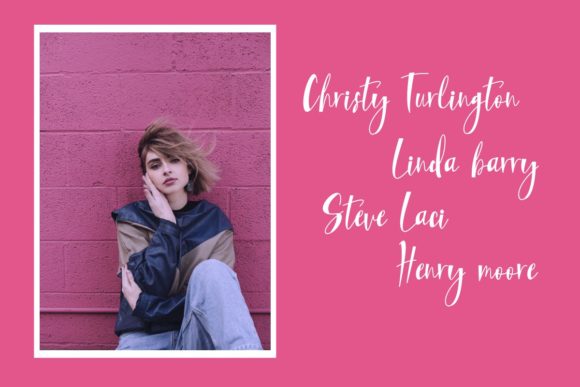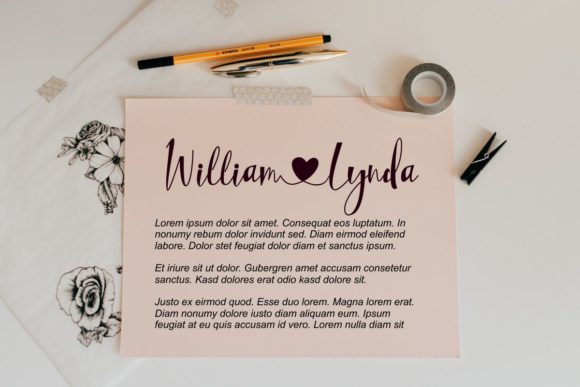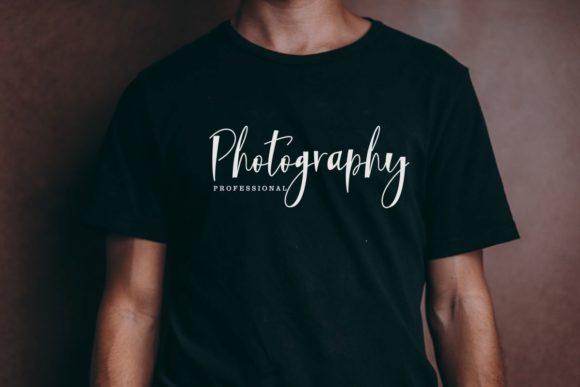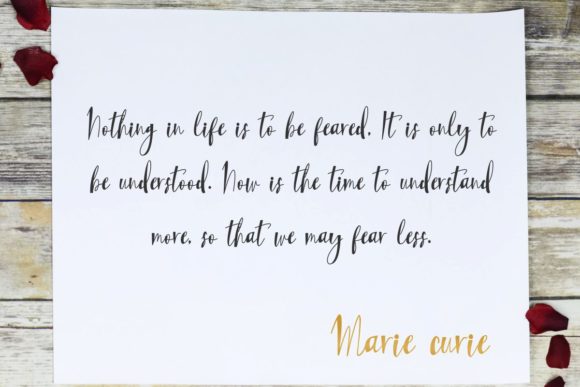
Embracing the Magic of Handwritten Touch
Have you ever sat down with a blank sheet of paper, pen in hand, and let your thoughts flow onto the page? It’s a moment of pure creativity, where the world slows down and all that’s left is the gentle scratch of the pen on paper. It’s a feeling that’s hard to replicate with digital tools, but that’s exactly where fonts like Hello Lovea Font come in – to bring a touch of elegance and warmth to your designs.
Hello Lovea Font is a beautifully crafted font that feels like a warm hug on paper. Its flowing lines and delicate curves make it perfect for wedding invitations, thank you cards, and any design that needs a handwritten touch. For designers, Hello Lovea Font is a valuable asset that can elevate their work and add a personal touch that digital fonts often lack.
Hello Lovea Font Key Features
- Unique Characteristics: Hello Lovea Font features a modern and elegant design, with unique letterforms and subtle flair, making it perfect for creative projects and branding.
Designer Review: Hello Lovea Font
Hello Lovea Font is a beautiful script font that exudes warmth and elegance. ✨ Its flowing connections and soft curves make it perfect for creating a romantic or vintage feel in your designs. I love how it can add a touch of whimsy to any project, making it stand out from more traditional fonts.
The font’s flexibility is also a major plus, as it works well in both digital and print formats. ✨ I’ve used it in a variety of projects, from social media graphics to wedding invitations, and it always looks stunning. The font’s legibility is also excellent, making it easy to read even at smaller sizes.
- ⚠️ Limited font weights: While the font has a good range of styles, it would be nice to have more options for emphasis or contrast.
- ⚠️ Not ideal for body text: While Hello Lovea Font is great for headings and titles, it may not be the best choice for large blocks of body text due to its flowing connections.
Overall, I’m really impressed with Hello Lovea Font. It’s a great addition to any designer’s toolkit, and I’ve enjoyed using it in my projects. With a few more font weights and some careful planning, it could be even more versatile. But as it stands, it’s a beautiful and effective choice for any design that needs a touch of elegance and romance.
Tips for Getting the Most Out of Hello Lovea Font
To get the most out of Hello Lovea Font, use it in combination with bold or italic styles to add emphasis. You can also pair it with other fonts to create a unique and eye-catching design. Experiment with different font sizes and colors to create visual interest.
Common Use Cases for Hello Lovea Font
Hello Lovea Font is perfect for creating romantic and whimsical designs, such as wedding invitations, baby announcements, or Valentine’s Day cards. It’s also great for adding a touch of elegance to business cards, brochures, or social media graphics.